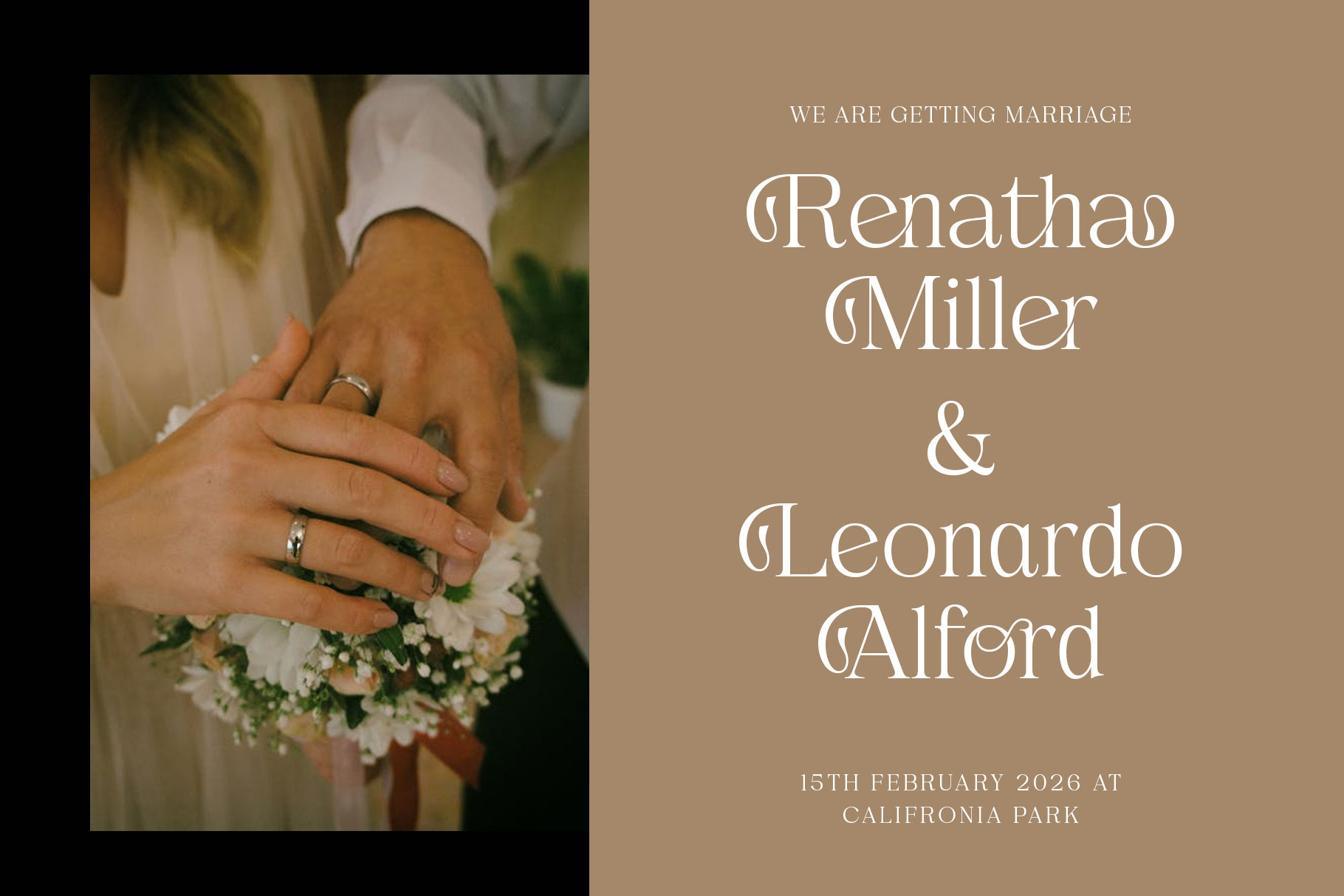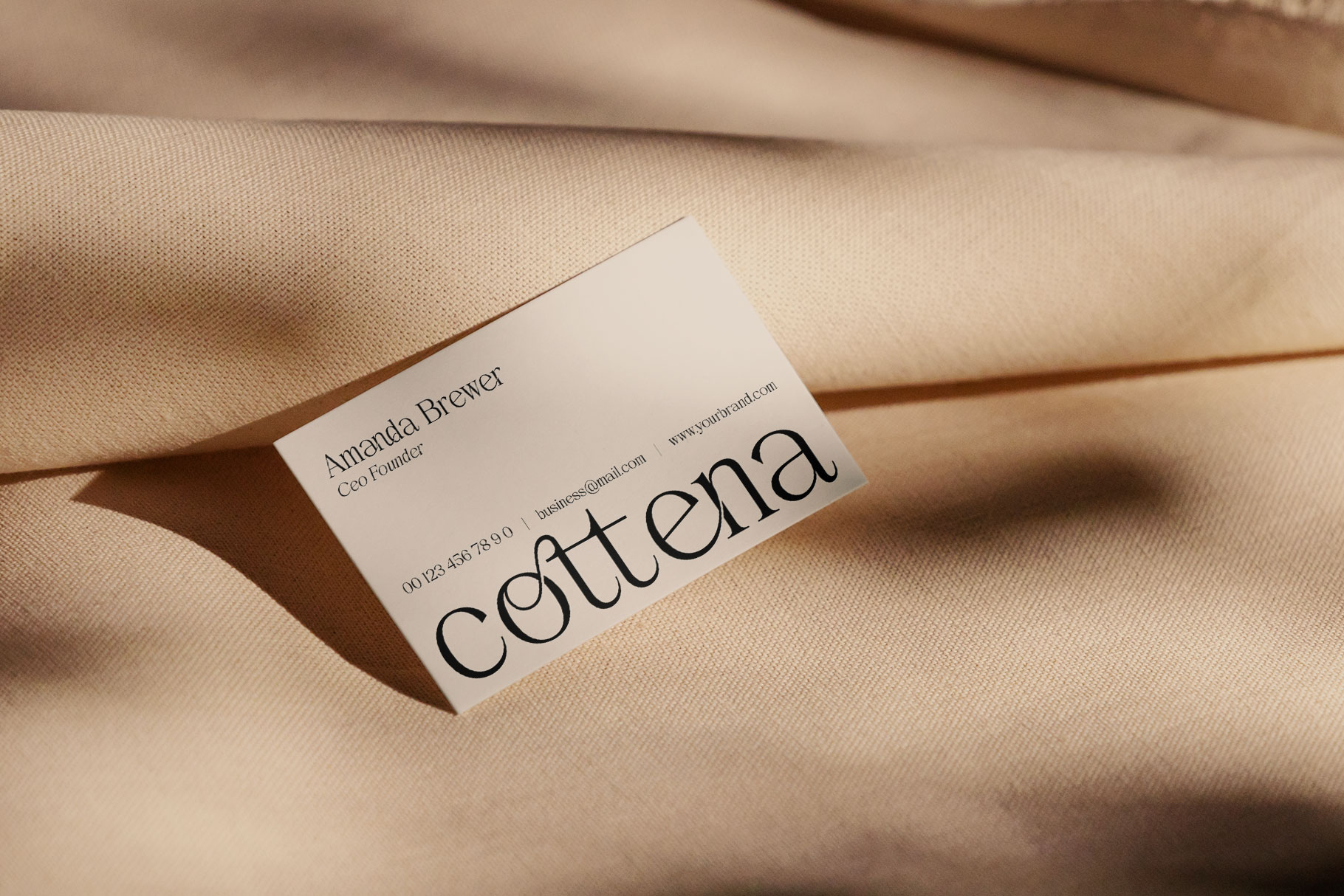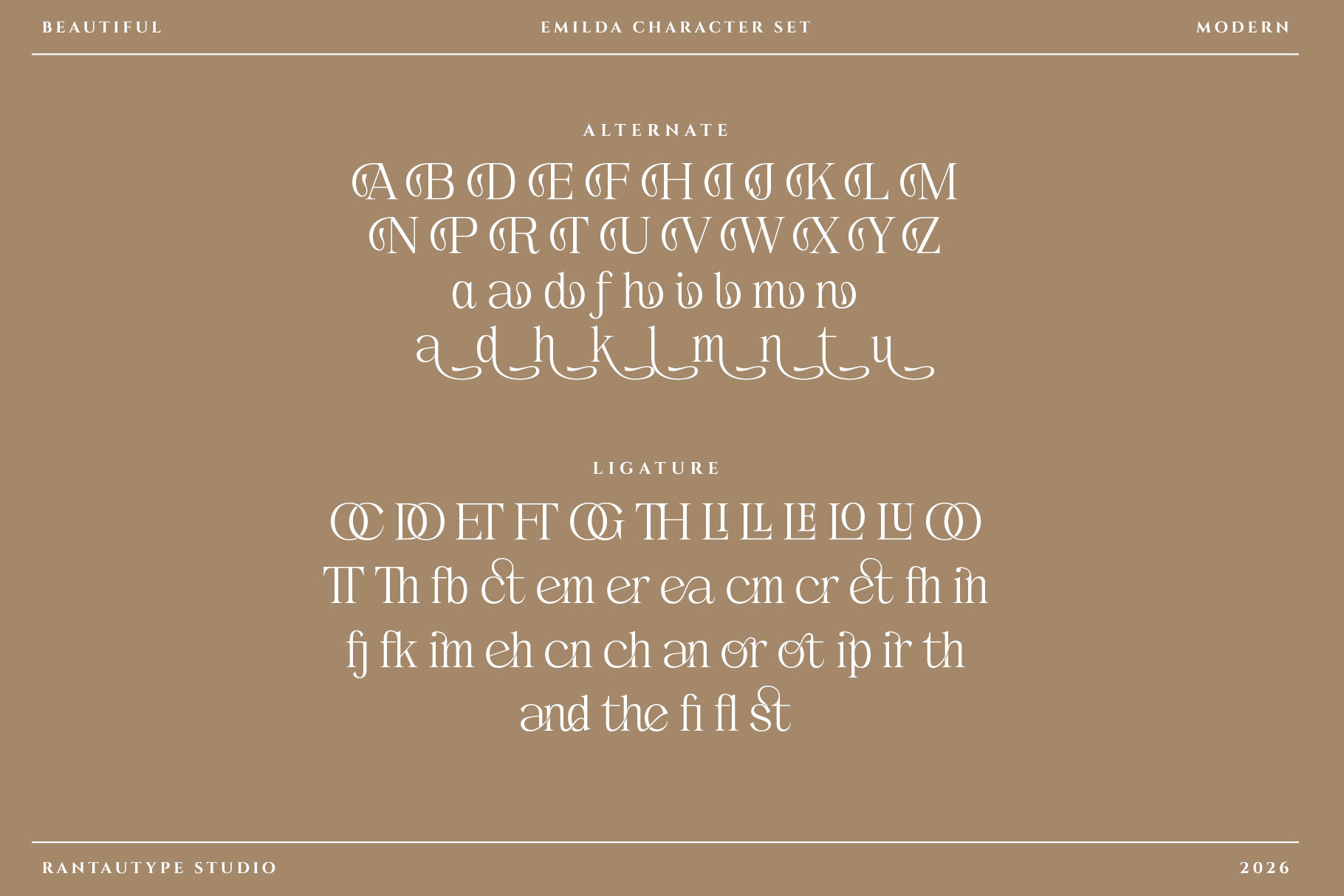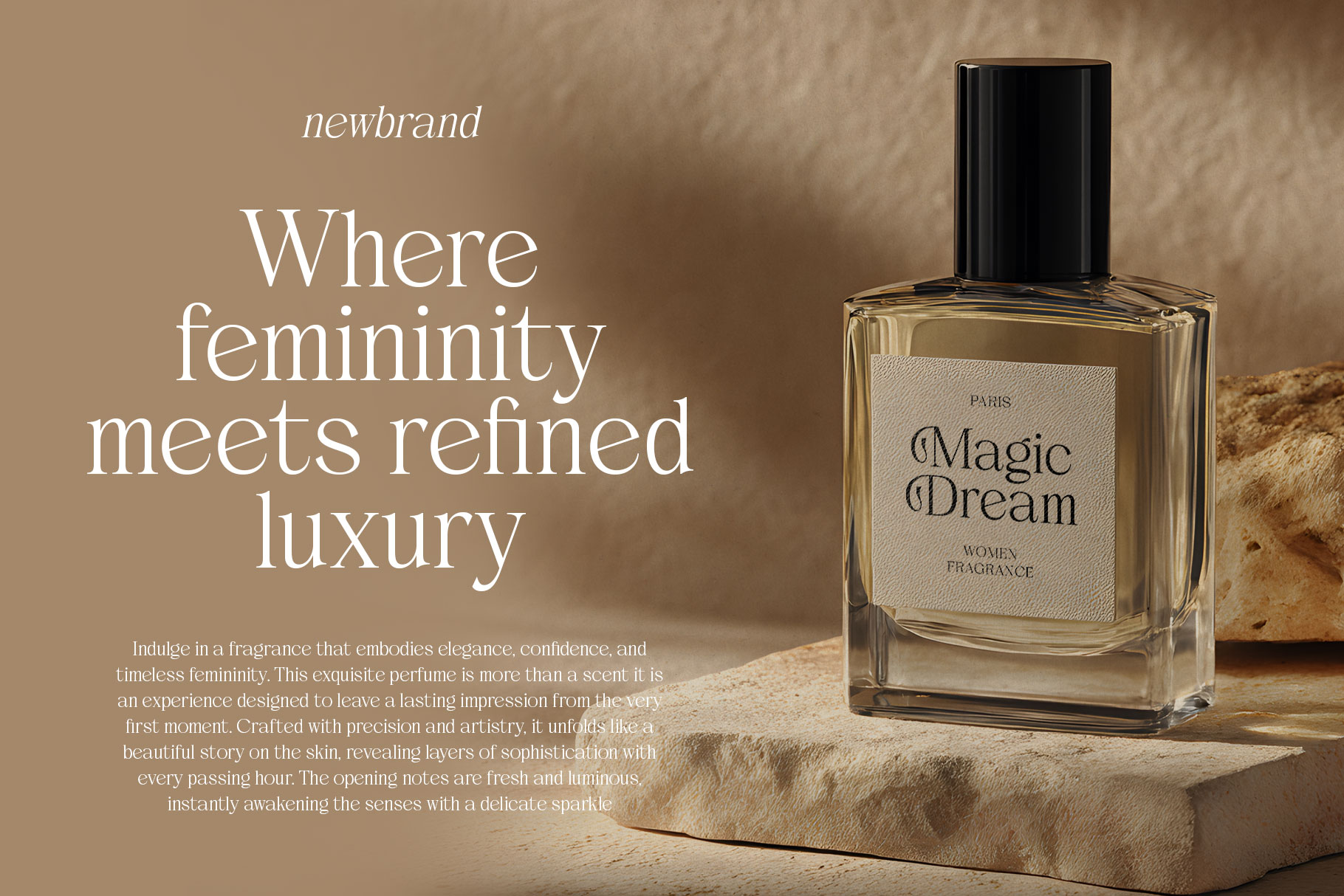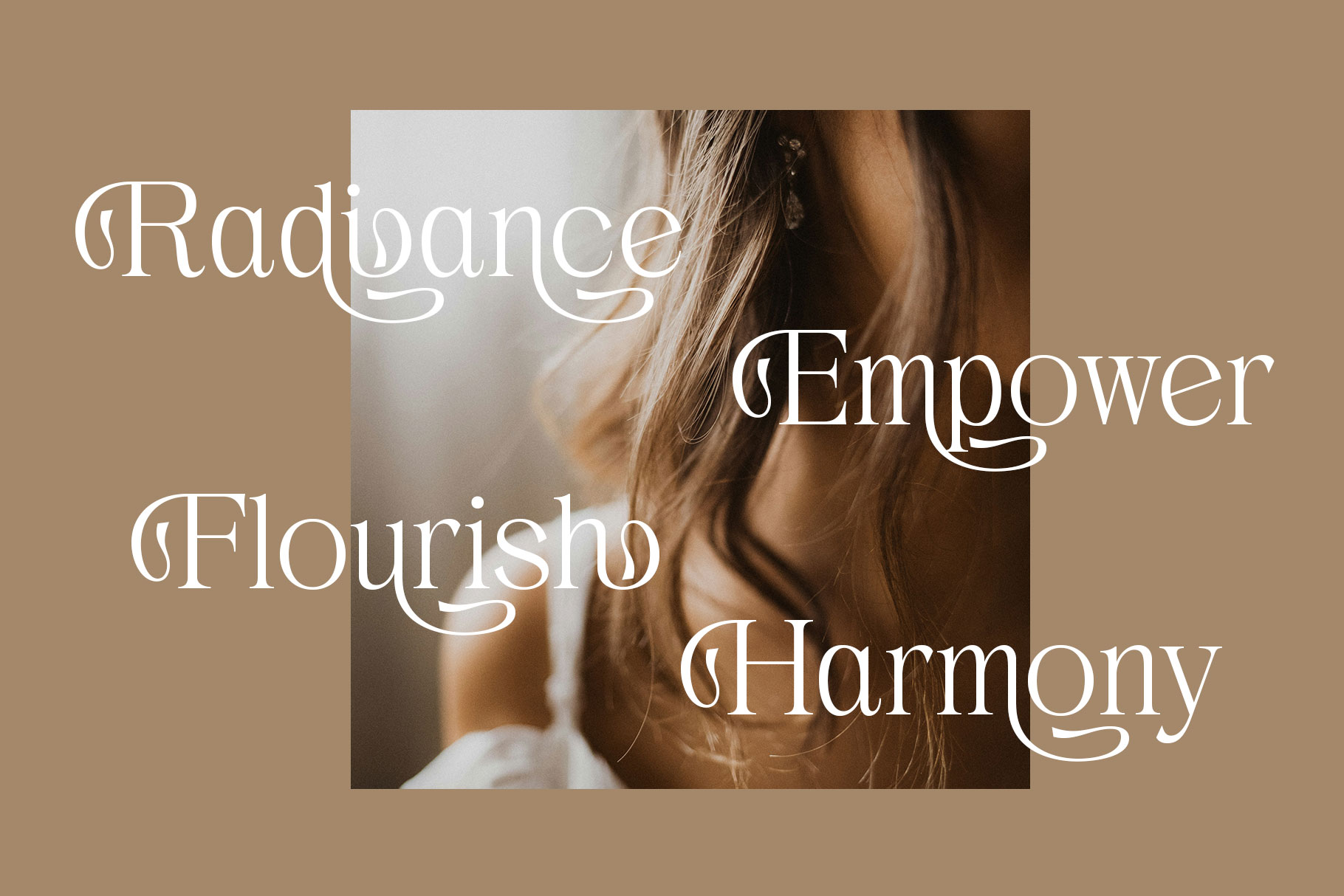
Emilda Modern Beautiful Serif Font
Emilda is modern font with beautiful alternate optional. Emilda design with balance and artistry in mind, this font blends timeless letterforms with modern refinement and each character creating a harmony.
Emilda is a perfectly choice for any creative endeavor, creating, modern, lifestyle design such as logotype, title, cover, branding, invitations, wedding designs, display and magazine, social media posts, advertisements, printed quotes, product packaging, corporate brand, product designs, labels, photography, watermarks, special events and any other project with modern touch.